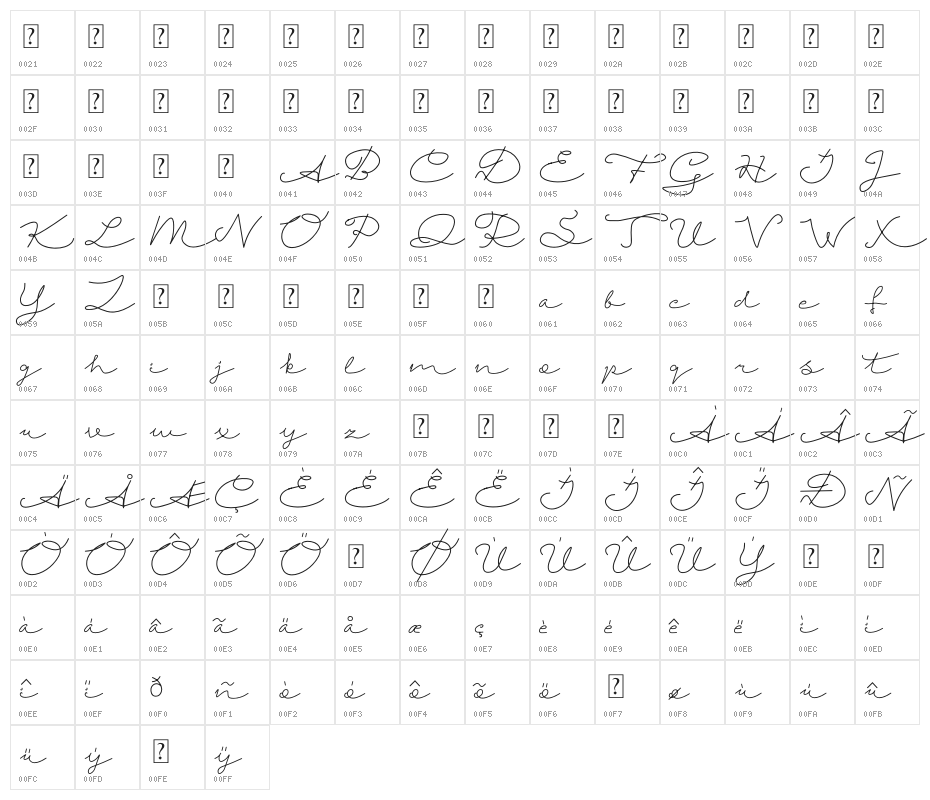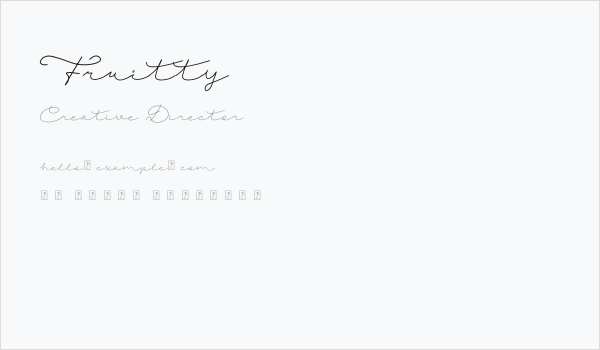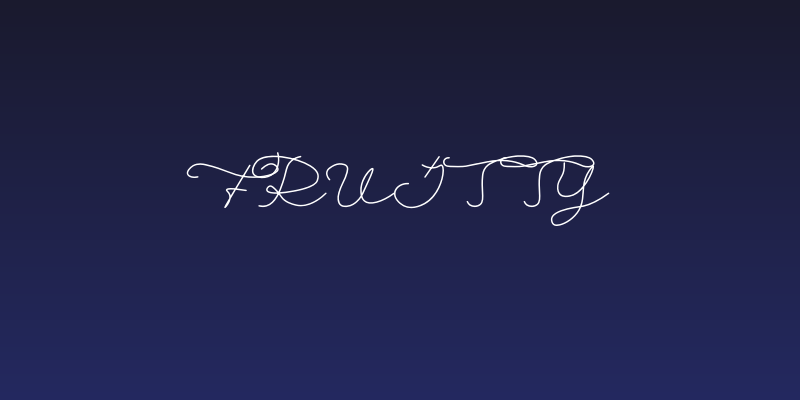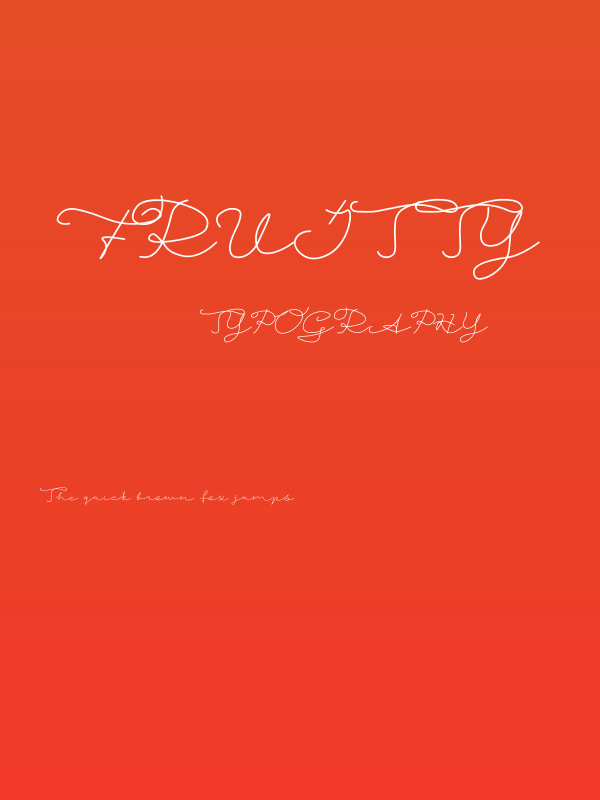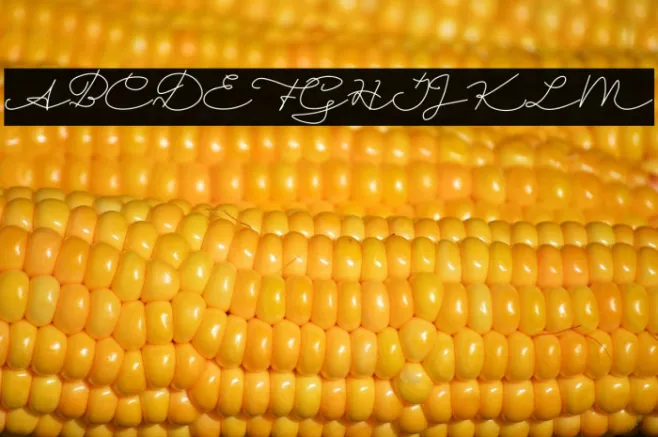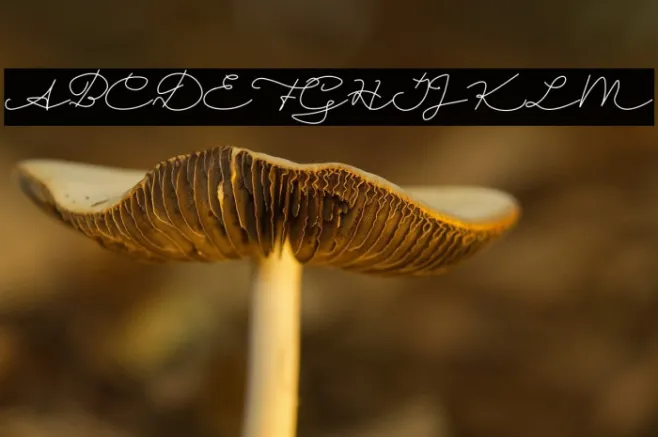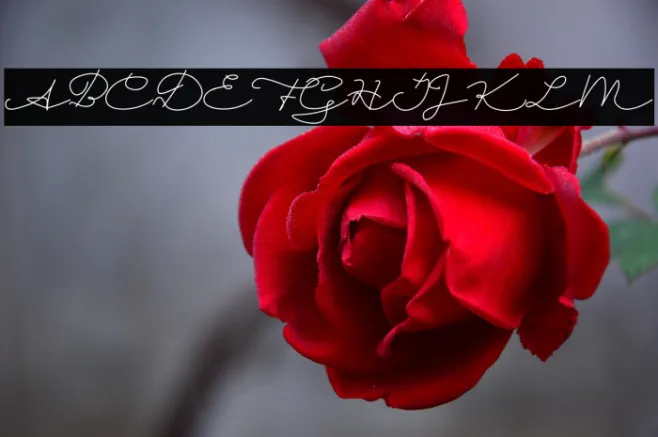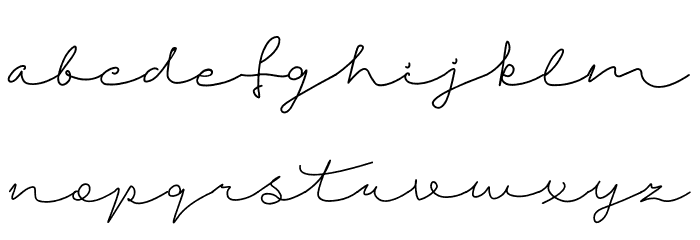
Fruitty Font
Fruitty Description
This font features an elegant and flowing script style, characterized by its smooth, continuous strokes and delicate curves. The uppercase letters exhibit a graceful flair with extended loops and swashes, while the lowercase letters maintain a consistent, fluid motion that enhances readability. The overall design exudes a sense of sophistication and charm, making it suitable for formal and decorative applications. The font's thin lines and subtle variations in stroke width contribute to its refined appearance, offering a touch of elegance to any project.
| Proposed Projects | Ideal for wedding invitations, elegant branding, greeting cards, and decorative signage. |